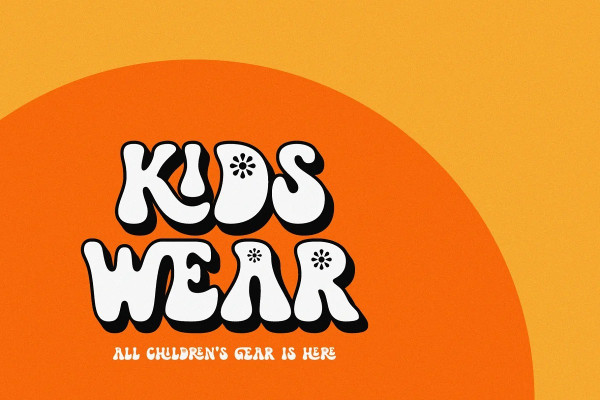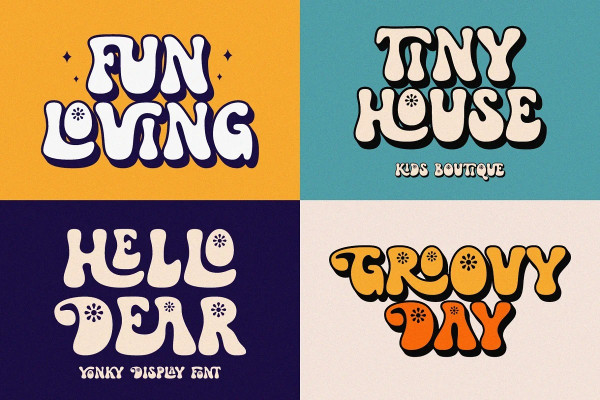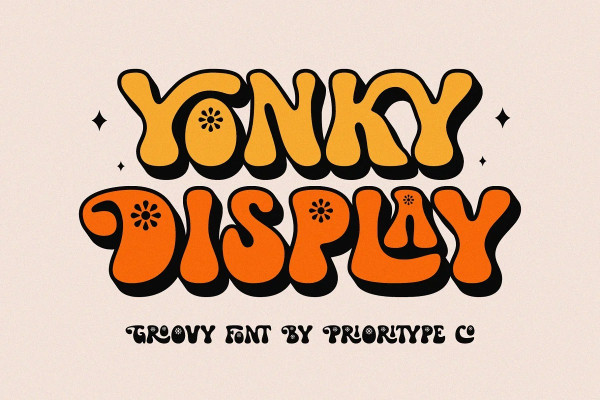
Yonky Display Font
Yonky Display Font is a really fun hand-drawn font. Consists of two styles namely regular & extrude. Perfect for poster designs, quotes, merchandise, logos and more.